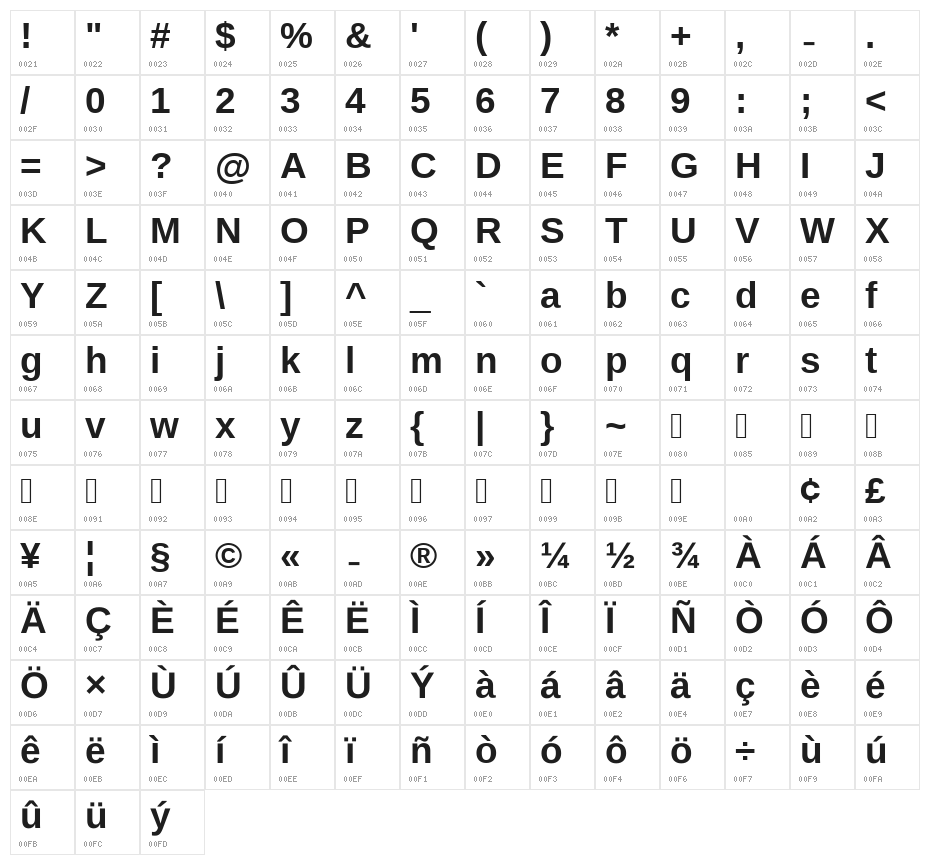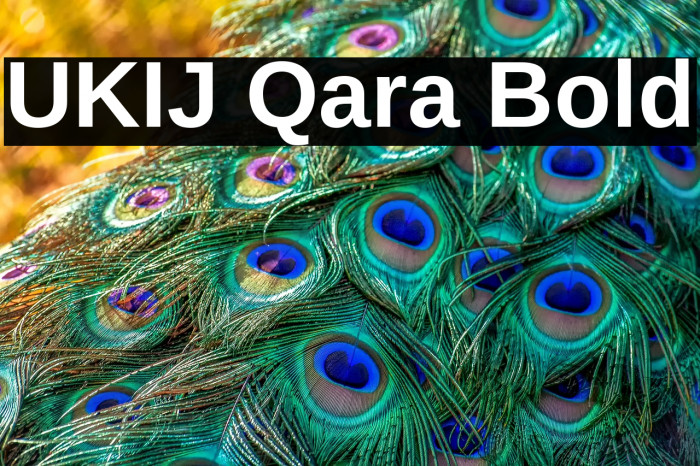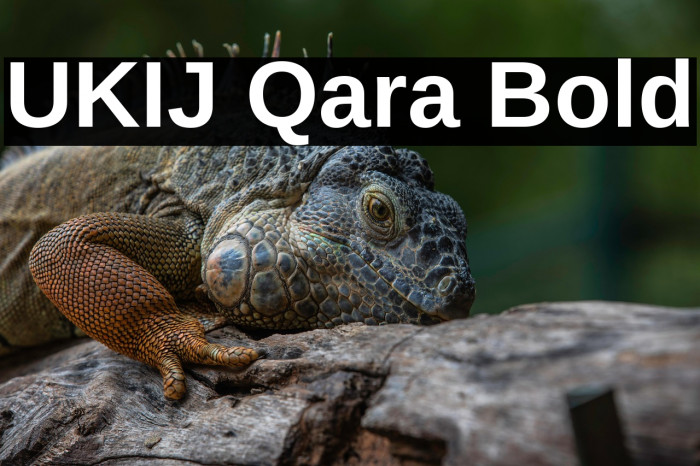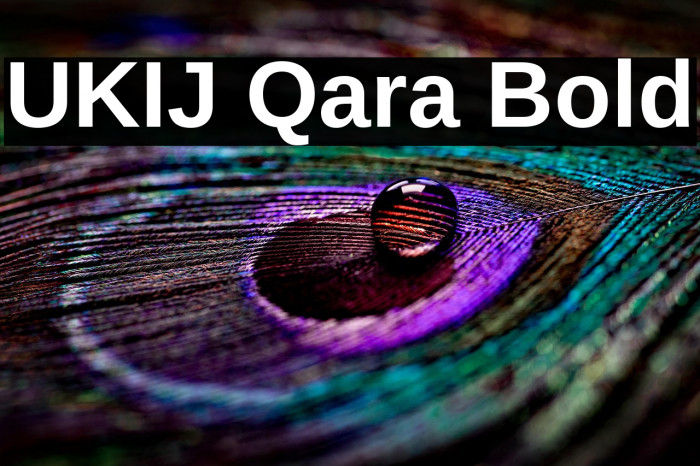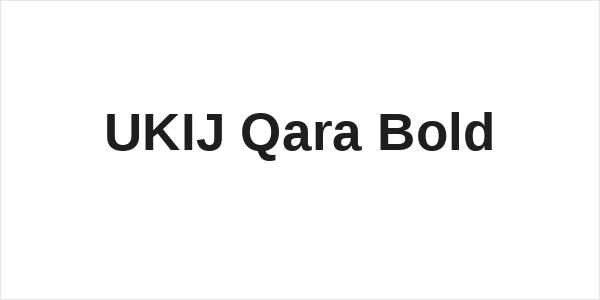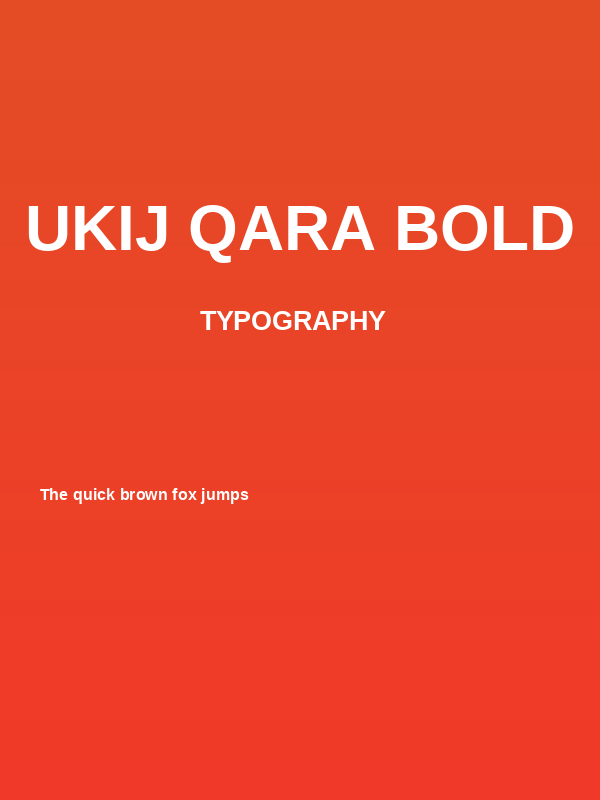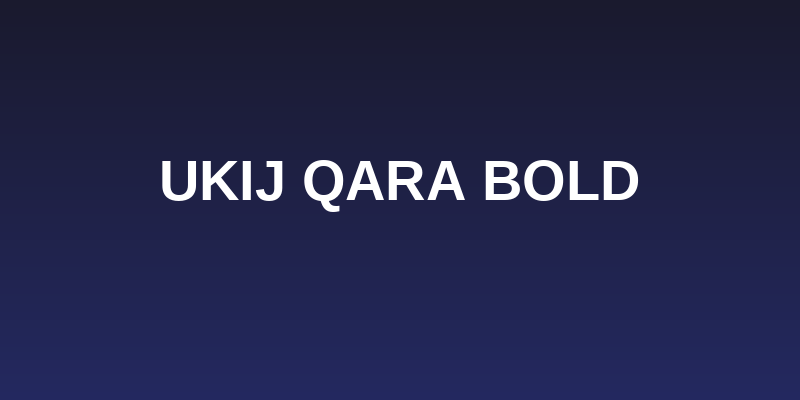
UKIJ Qara Bold Font
UKIJ Qara Bold Description
This font features a bold and clean sans-serif style, characterized by its strong, uniform strokes and modern appearance. The uppercase letters are well-proportioned with a consistent height, while the lowercase letters maintain a balanced and harmonious look. The numerals are clear and easy to read, making them suitable for various applications. Special characters are distinct and complement the overall design, ensuring versatility in usage. The font's bold weight and straightforward design make it ideal for impactful headlines and attention-grabbing text.
| Use Case | Headlines, Logos, Advertising |
| Proposed Projects | Ideal for branding, advertising, headlines, posters, and digital media where a bold statement is needed. |